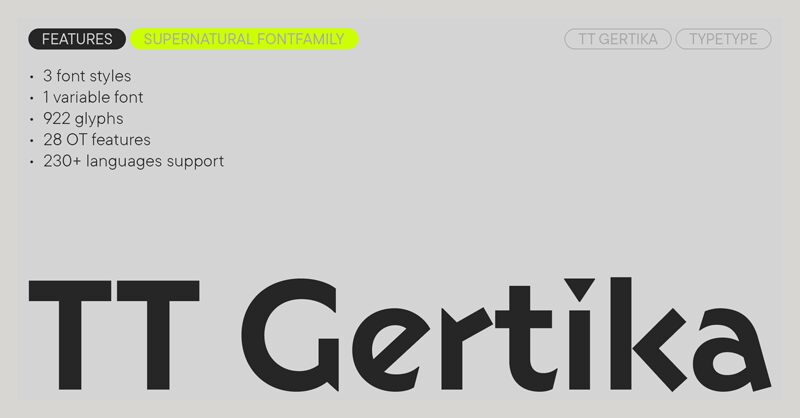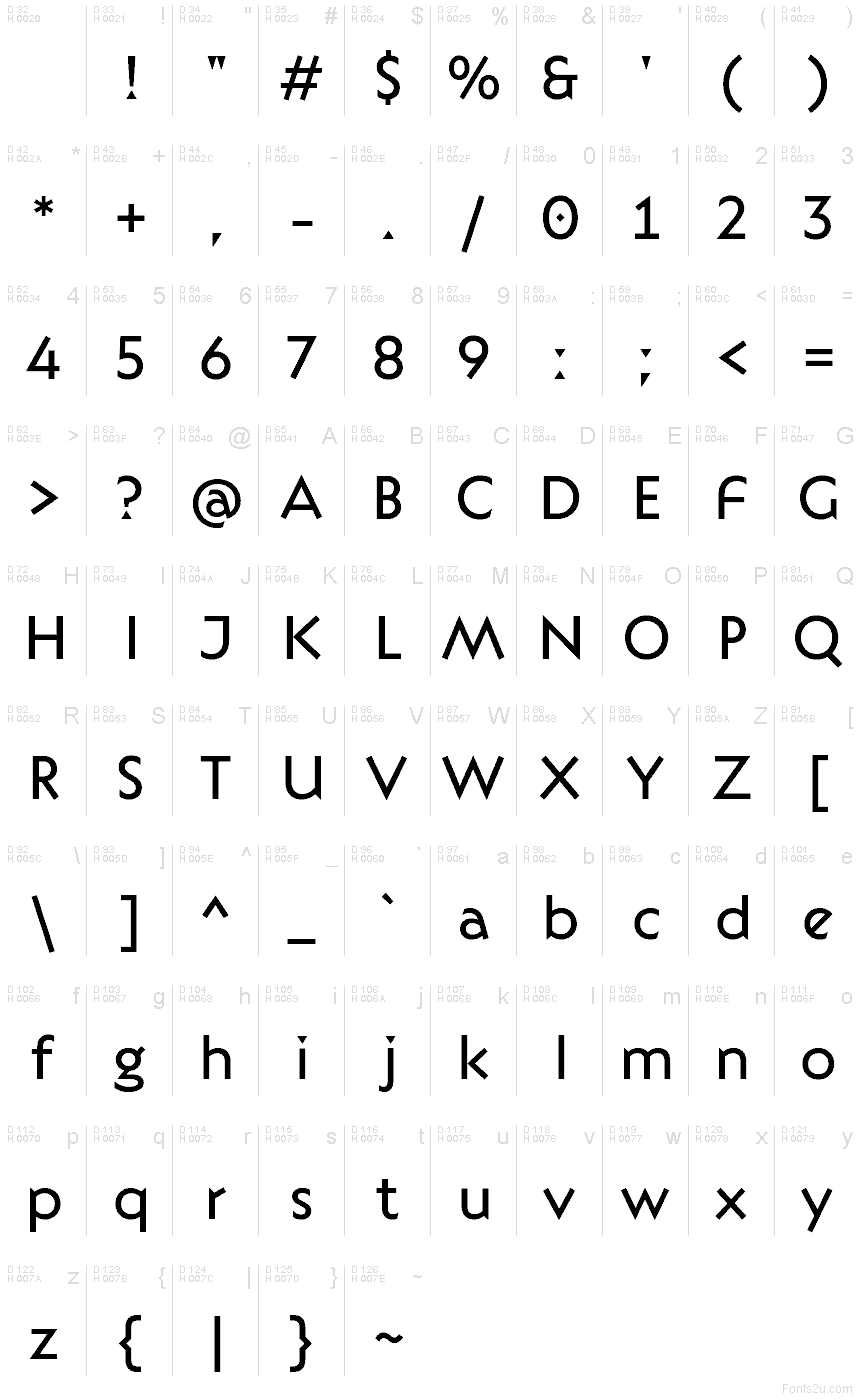
TT Gertika Trial Regular
TT Gertika font by TypeType Foundry is a free sans serif typeface that solves the “friendly but serious” brief with ease. Its clean, straight stems meet smooth, rounded curves, giving text a modern, geometric backbone with just enough warmth to stay approachable. Letters sit with calm, even spacing, so headlines feel bold and confident while longer lines remain airy and readable instead of cramped.
Using TT Gertika, you get a workhorse that shines on brand identities, product packaging, digital interfaces, pitch decks, social graphics, and signage. The simple, open forms scale beautifully from compact UI labels to oversized hero titles without losing clarity. This free font pairs especially well with a light serif for body copy—set TT Gertika in medium or bold for headings and let the serif handle long-form reading.